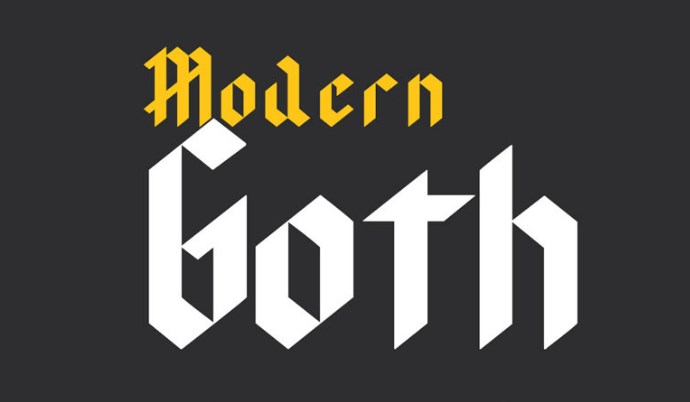
Gothic Modern Font
Gothic Modern font should be used while your picture design calls for the typeface that expresses geometric fashion. It is best for invites, packaging layout, books, and almost any creative design.